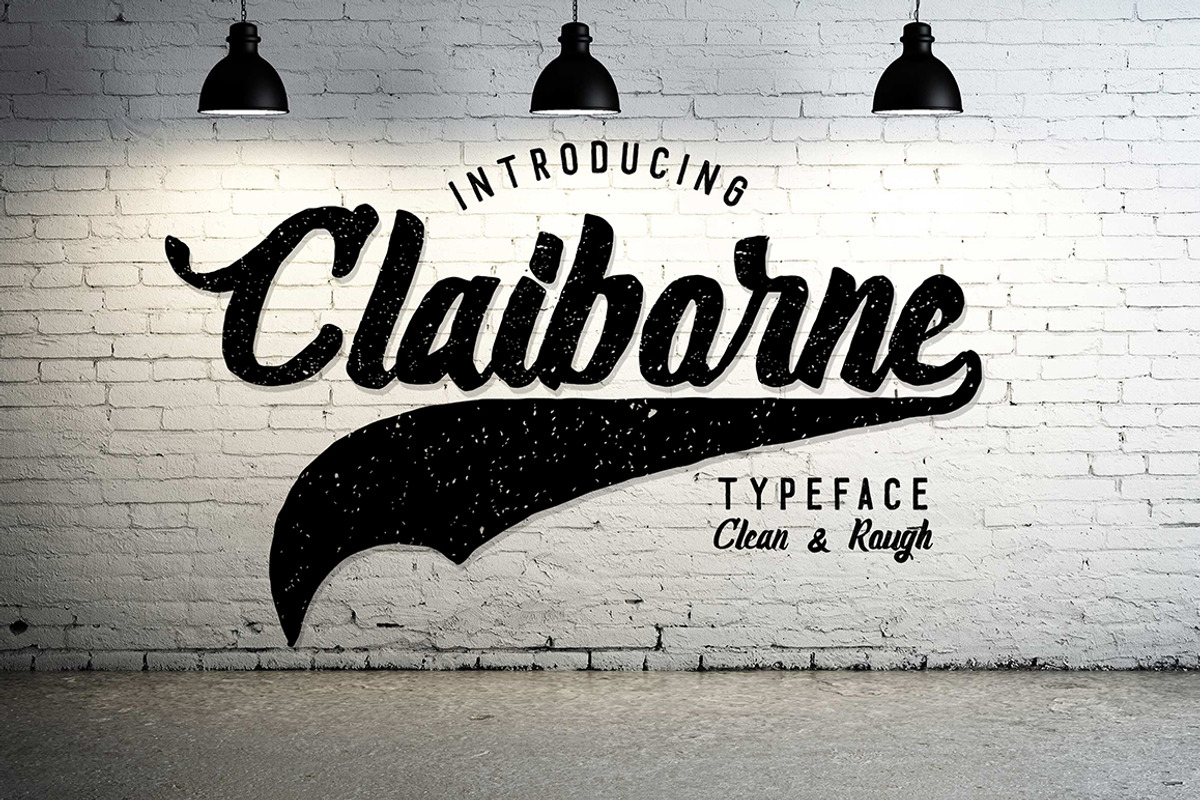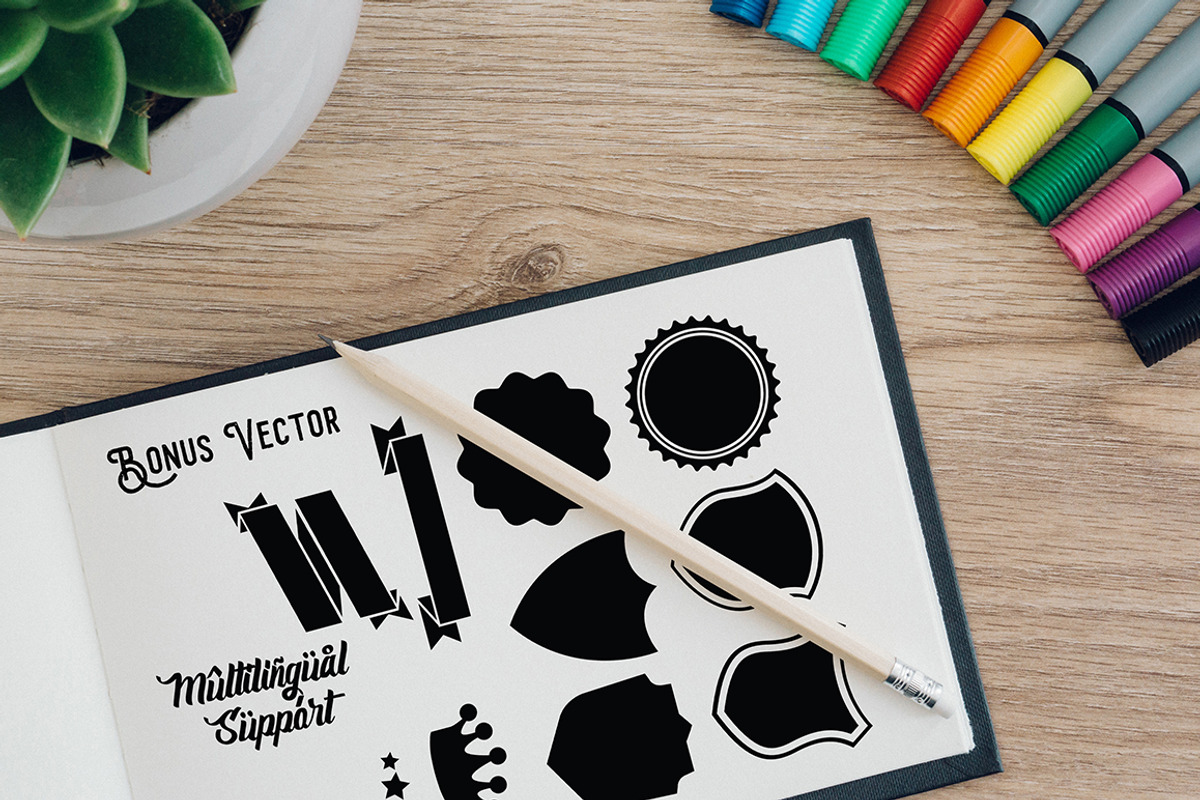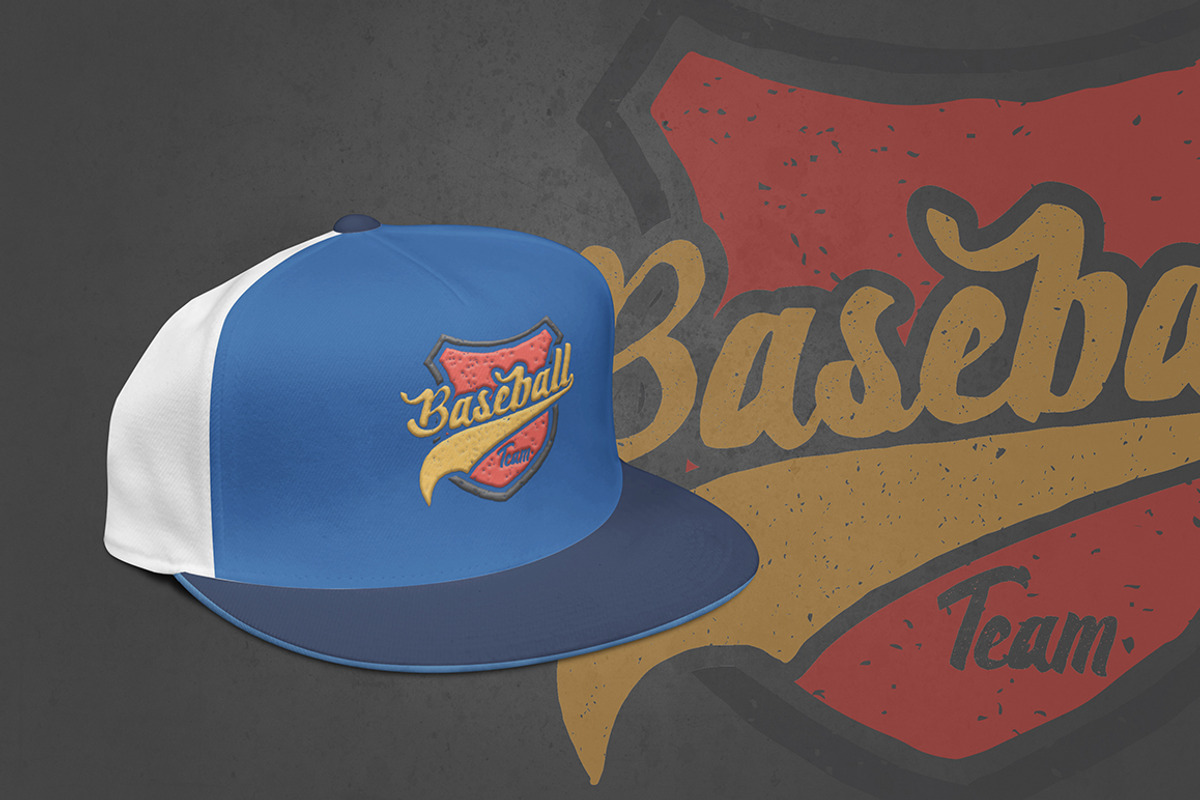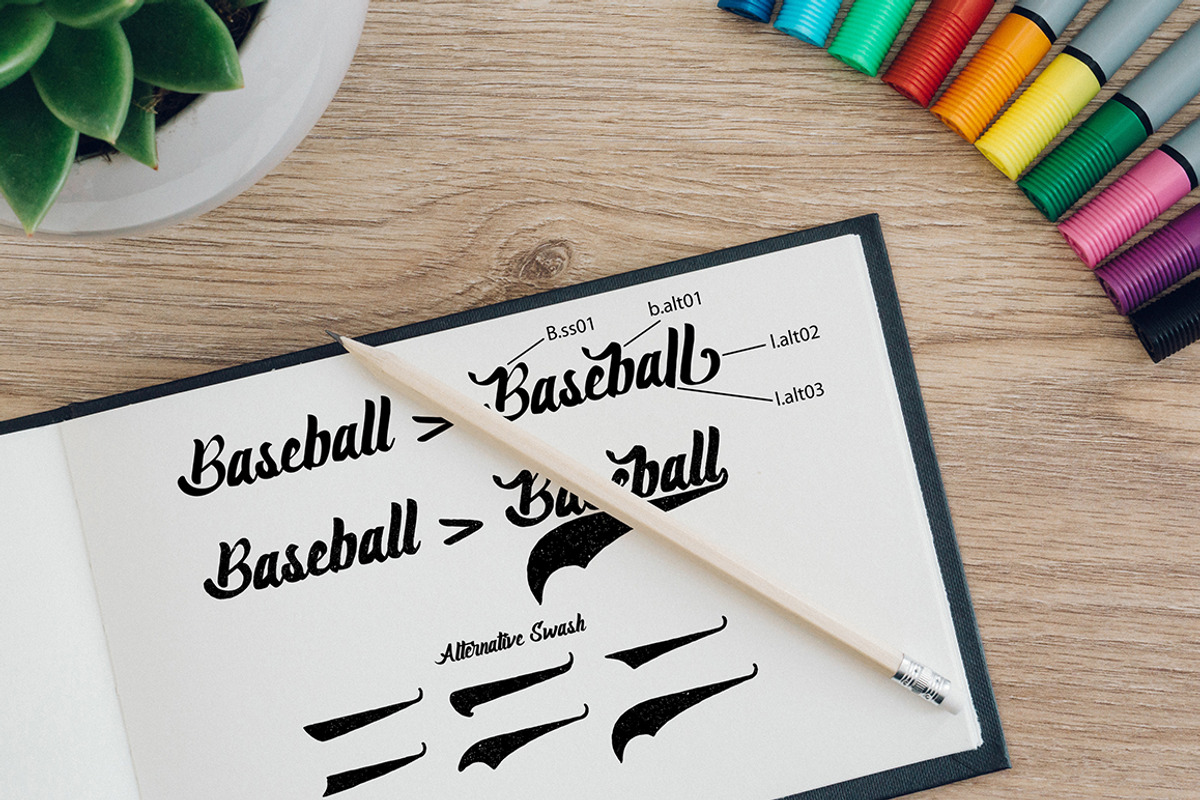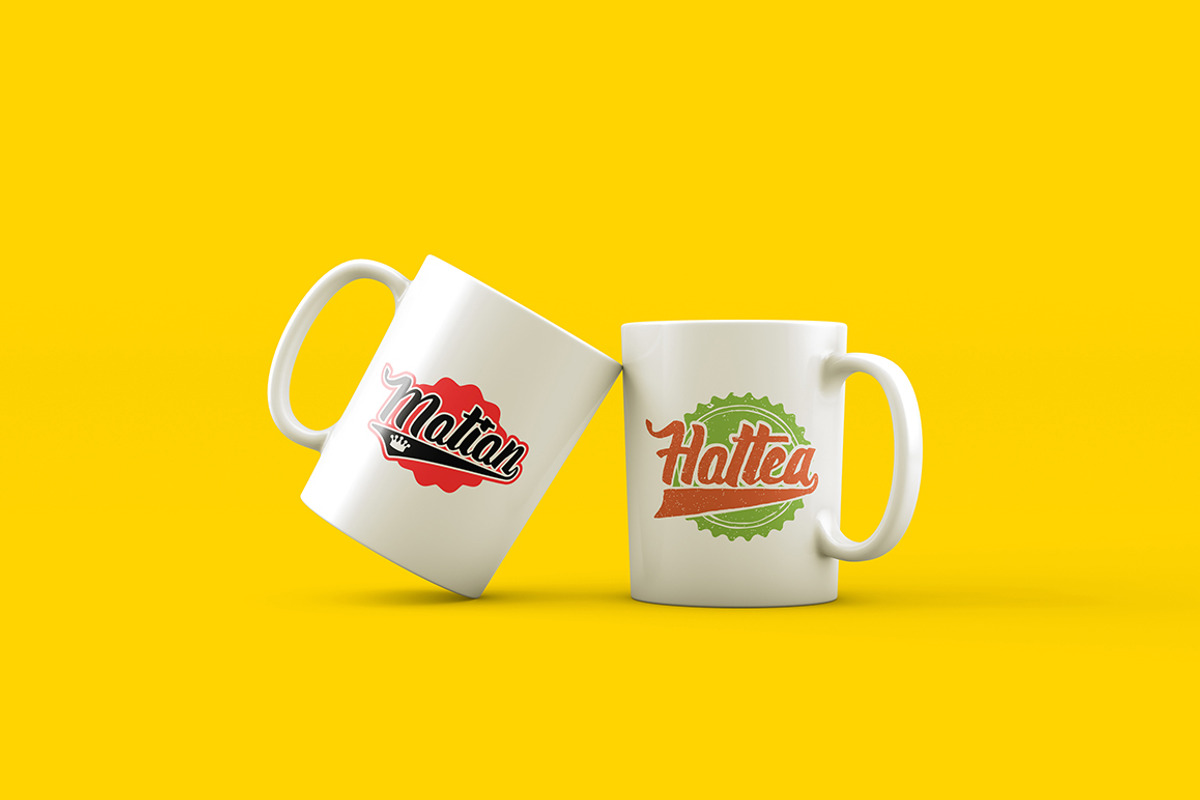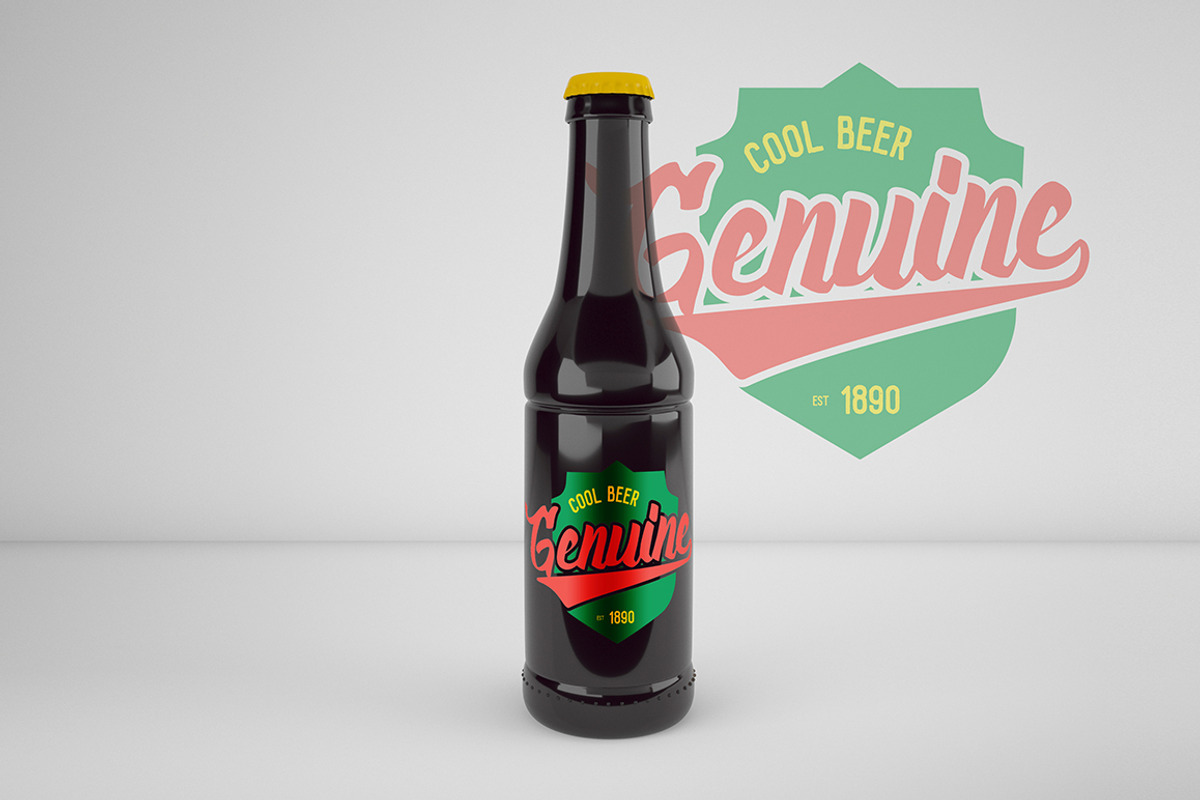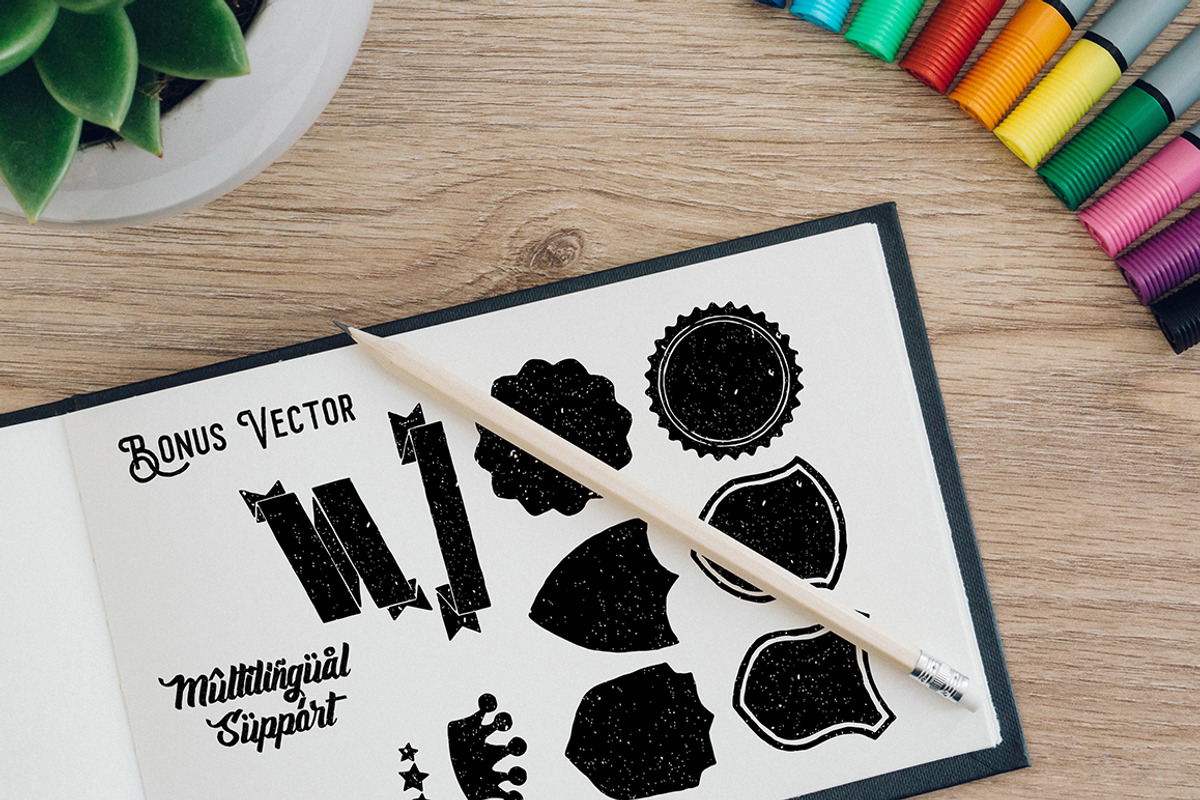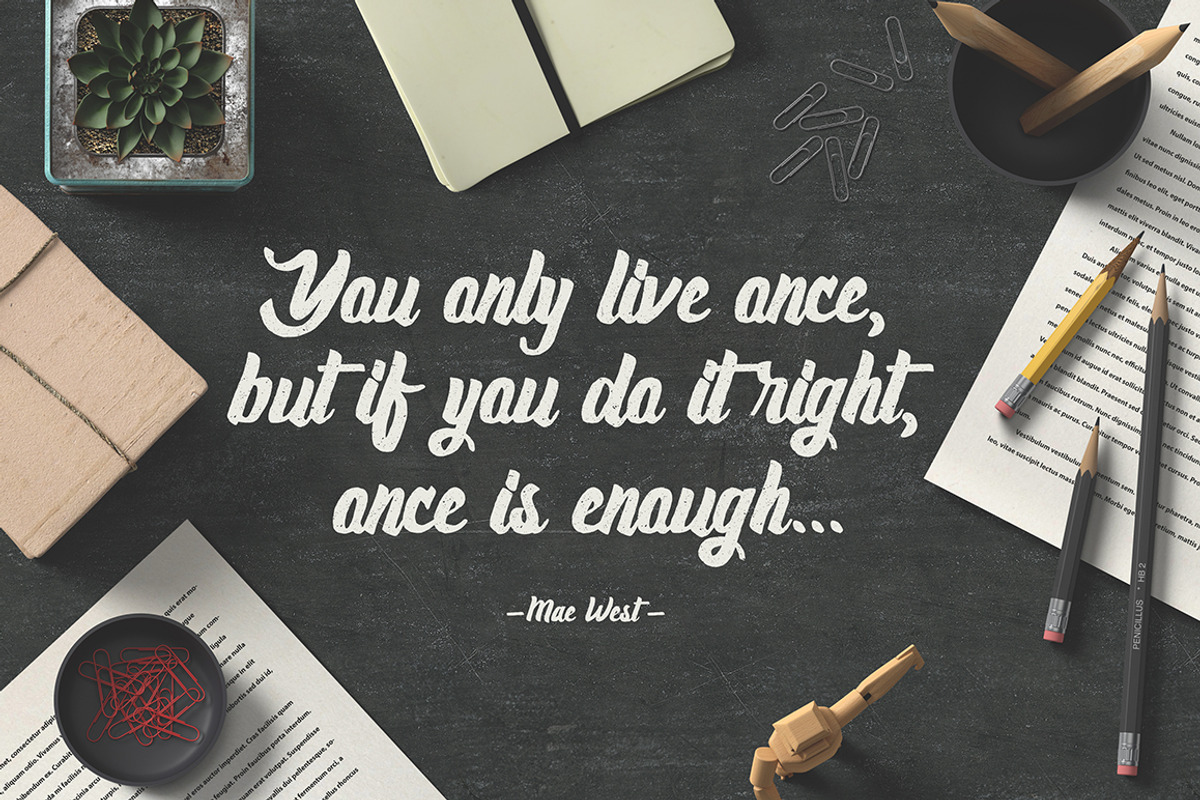
Claiborne Typeface
Hello I'm really excited to introduce Claiborne script typeface font with clean & rough style. Claiborne perfect for poster design, book covers, merchandise, fashion campaigns, newsletters, branding, advertising, magazines, greeting cards, album covers, and quote designs and more.
- Claiborne Claiborne
- Claiborne Rough Claiborne Rough
Claiborne Typeface by madeDeduk fits naturally into Branding, posters, packaging, typography.